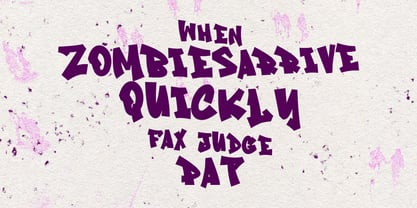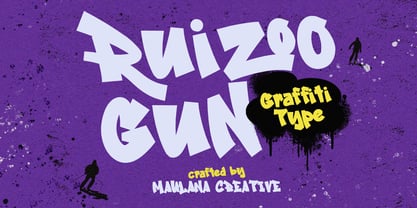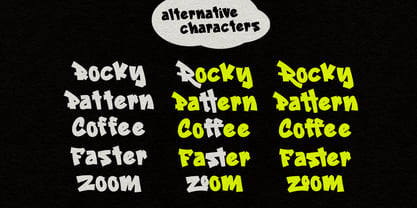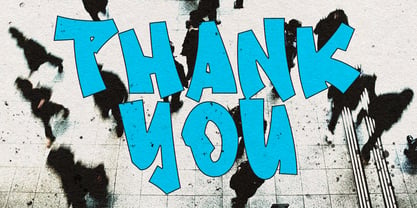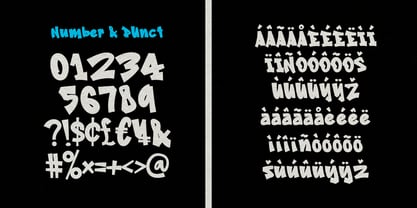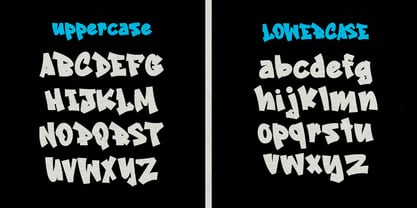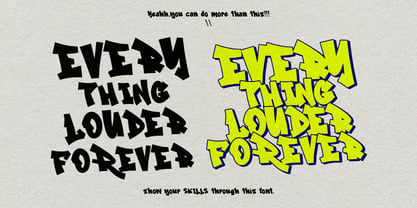
MC Ruizoo Gun
by Maulana Creative
The MC Ruizoo Gun Font Family was designed by Gilang Maulana and published by Maulana Creative. MC Ruizoo Gun contains 1 styles. More about this family
Ruizoo Gun is a fancy graffiti style font. With fun character with a bit of ligatures and alternative. To give you an extra creative work Ruizoo Gun font support multilingual more than 100+ language. This font is good for logo design, Social media, Movie Titles, Books Titles, a short text even a long text letter and good for your secondary text font with sans or serif. Make a stunning work with Ruizoo Gun font.
Designers: Gilang Maulana
Foundry: Maulana Creative